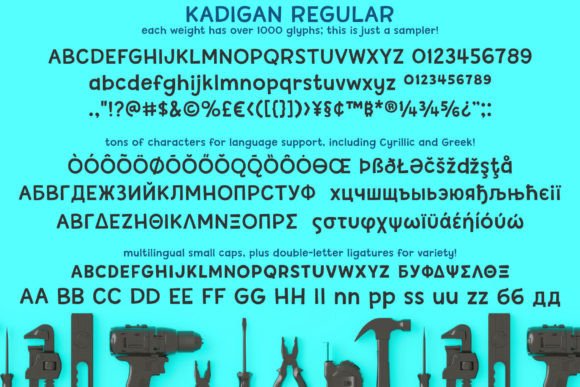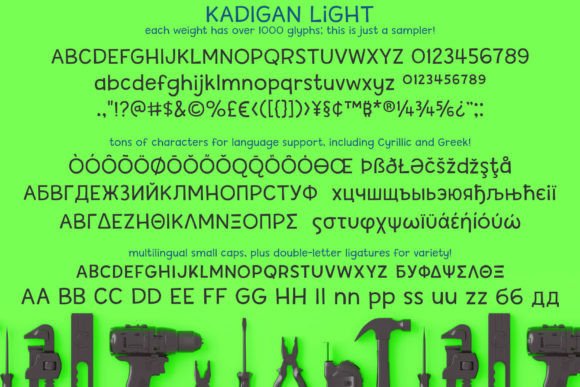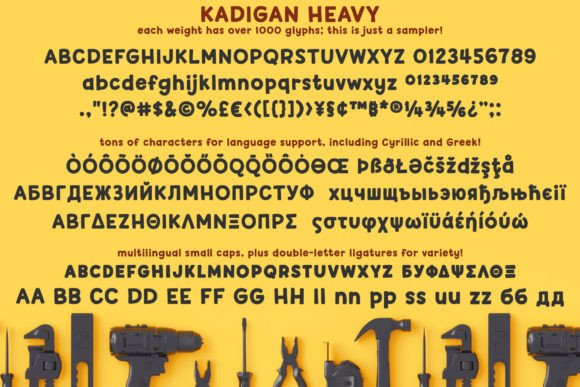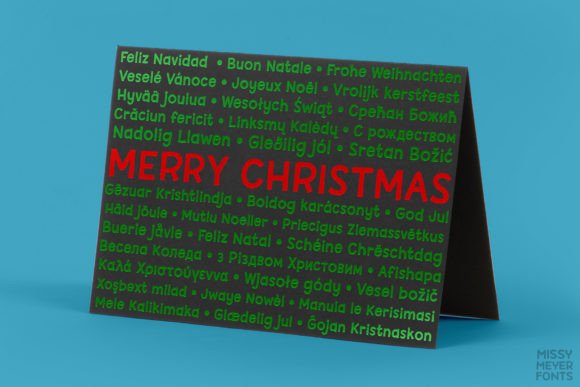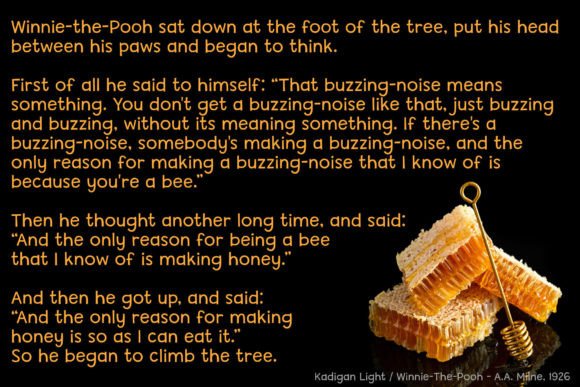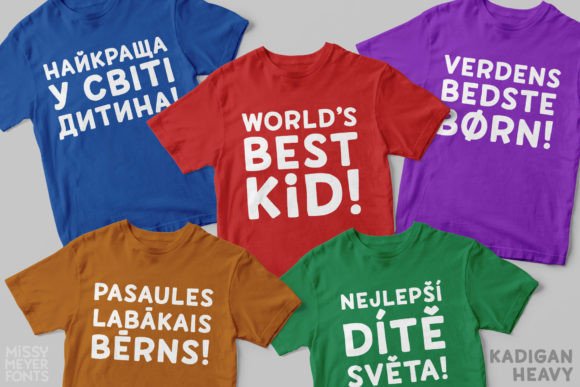
Introduction to Kadigan Font
Kadigan: (noun) A placeholder word.
A kadigan can be used to substitute for any other noun: persons (John Doe, Acme Company), places (Anytown, 123 Main Street) or things (whatchamacallit, thingamajig) Just like kadigans can be used in nearly any situation, the members of the Kadigan font family can be used in nearly any design.